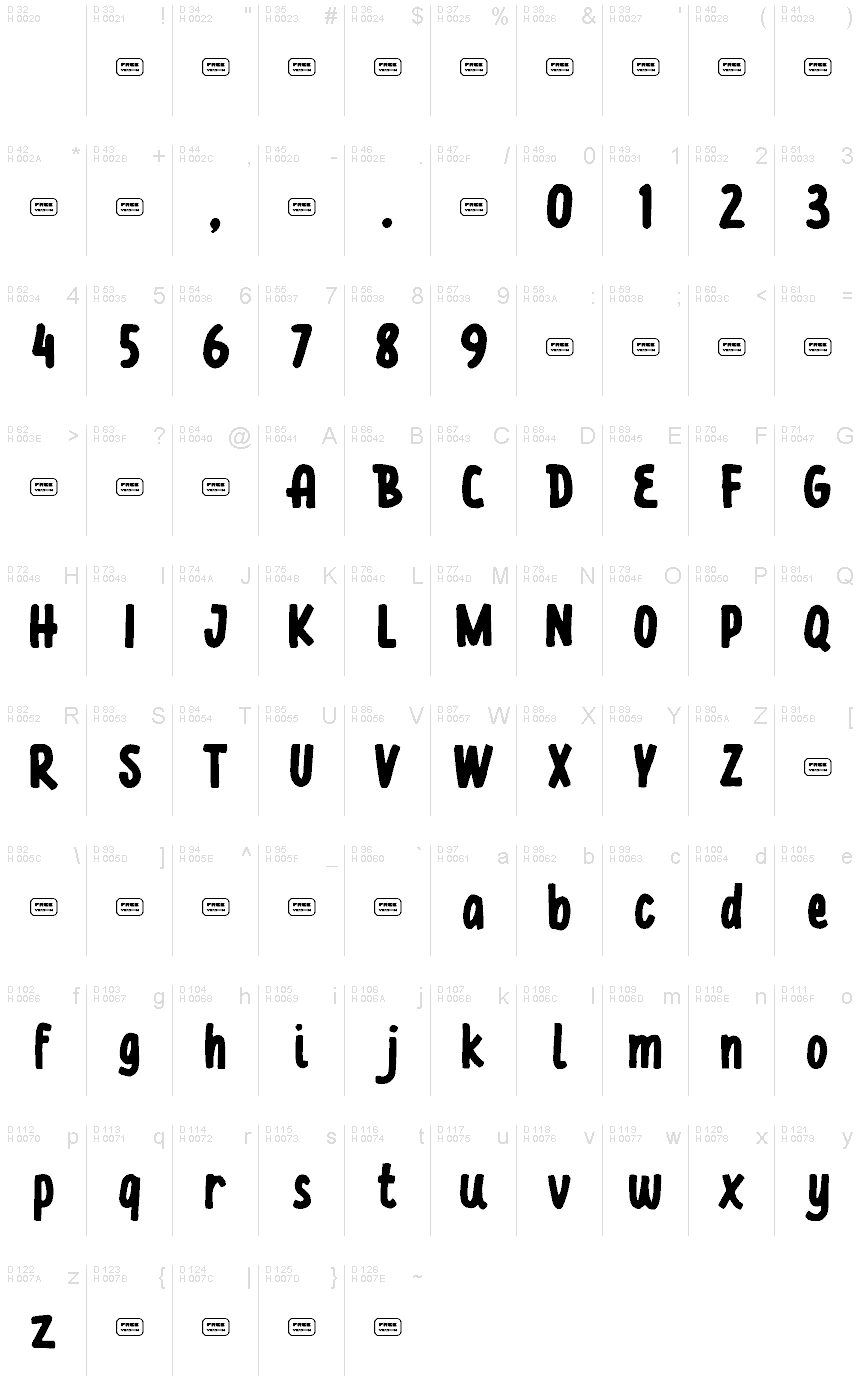
Baloba Free Trial
Baloba font by Typefactoryco is a fun display font that combines a quirky, cartoonish style with a youthful vibe. Distinctive and impactful, this sans-serif typeface features condensed letters for a concentrated visual effect. Its presence is casual yet striking thanks to its playful irregular strokes and retro-inspired edge.